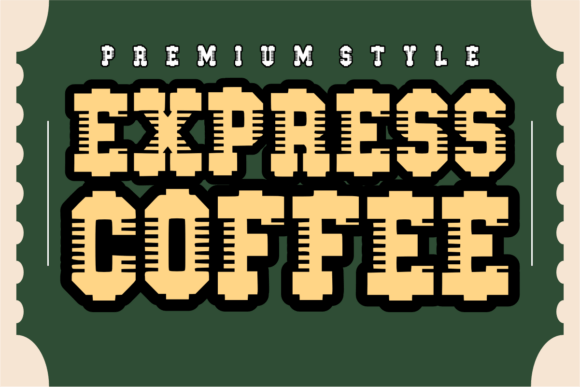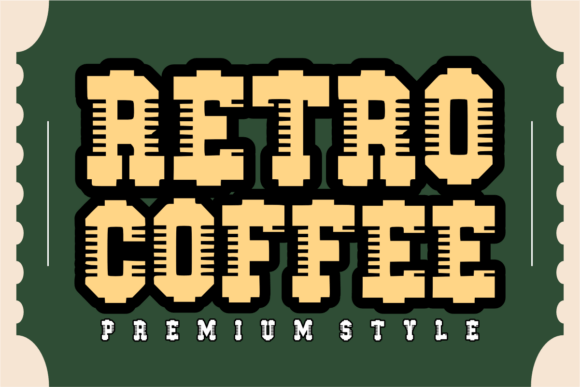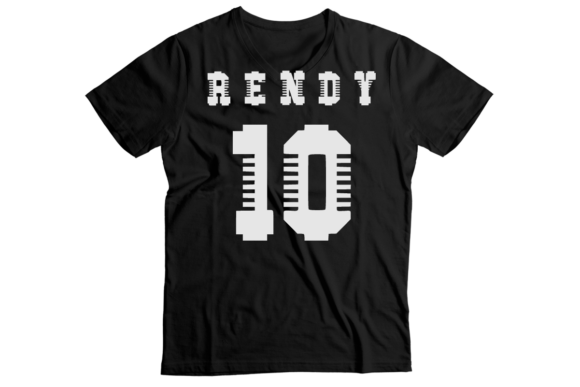
Introduction to Of Road Font
Experience the daring allure of β€œOf Road”, a contemporary slab serif typeface, proudly parading an exclusive uppercase repertoire.
Displaying distinctive, robust characters, each one adds its unique zest, enhancing recognizability instantaneously Whether you’re working on nostalgic craft creations, energizing animations, dynamic comic titles or hanker for that vintage touch to magazines and retro books, β€œOf Road” impeccably elevates the charm.
Key Features of Of Road Font